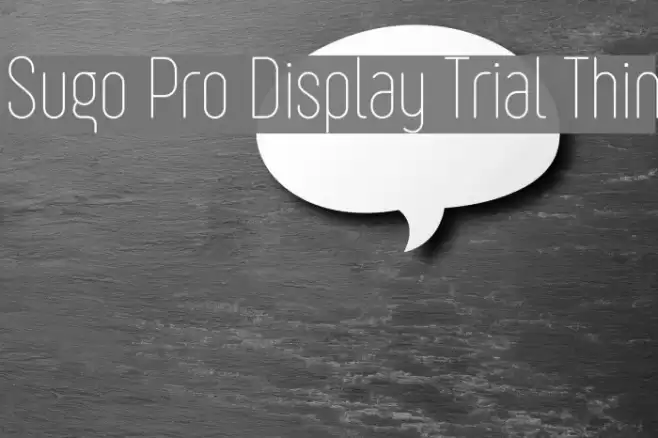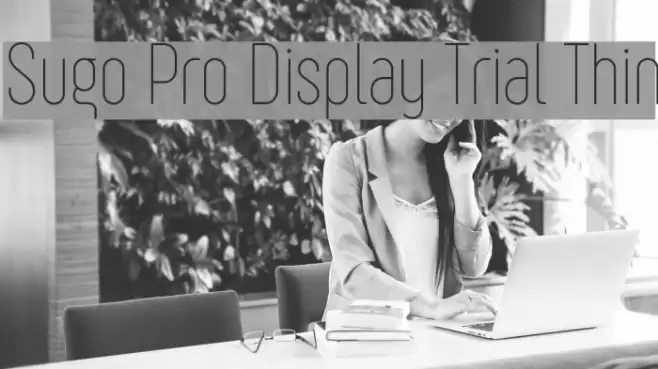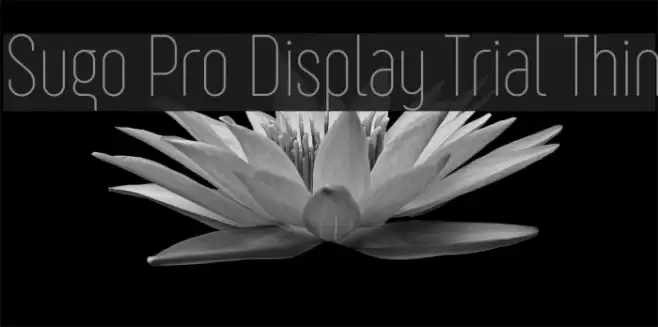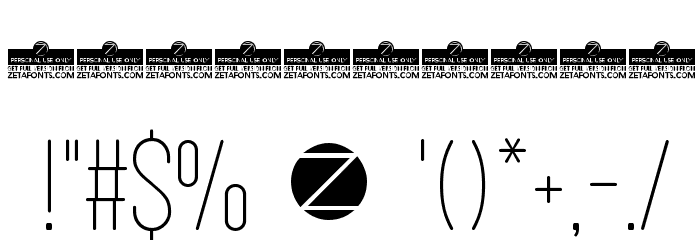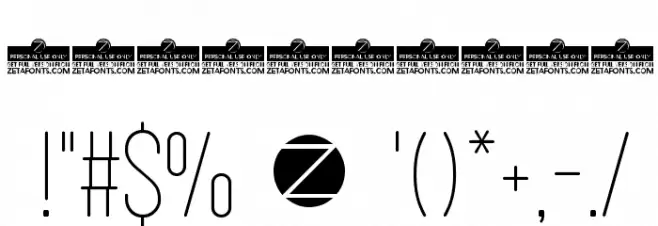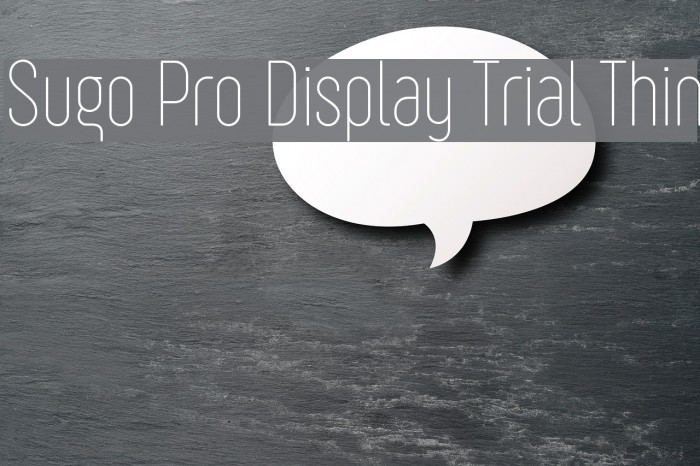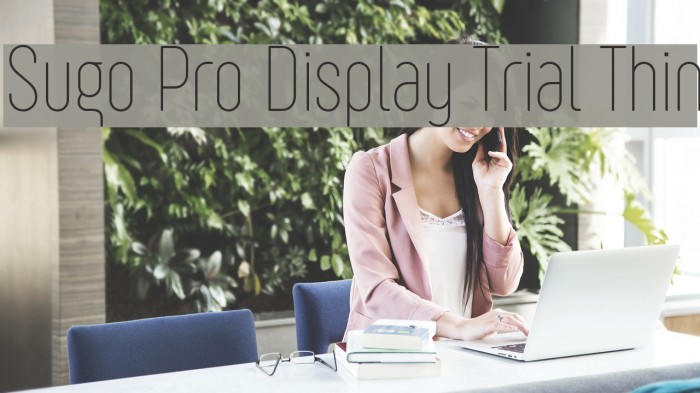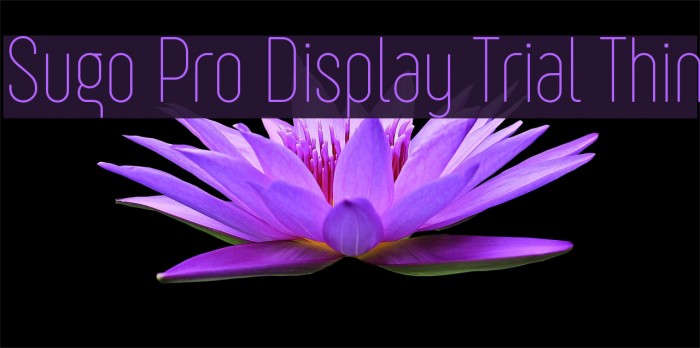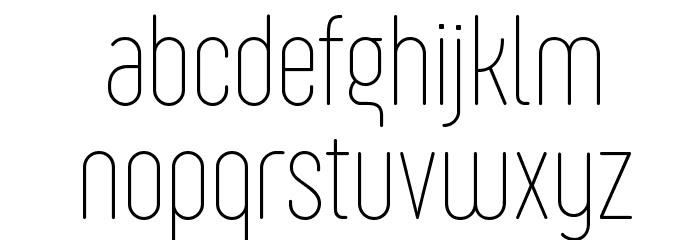
Sugo Pro Display Trial Thin Font
Sugo Pro Display Trial Thin Description
This font features a sleek, modern design with elongated, thin strokes that give it a refined and elegant appearance. The characters are tall and narrow, with a consistent stroke width that maintains a minimalist aesthetic. The uppercase and lowercase letters share a uniform style, emphasizing verticality and simplicity. The numerals and special characters are designed to complement the alphabet, maintaining the same thin, streamlined look. This font is ideal for creating a sophisticated and contemporary feel in any design project.
A sleek, modern font with elongated, thin strokes and a minimalist aesthetic from Uncategorized fonts.
- Proposed Projects: Ideal for fashion magazines, luxury branding, minimalist posters, and modern web design.